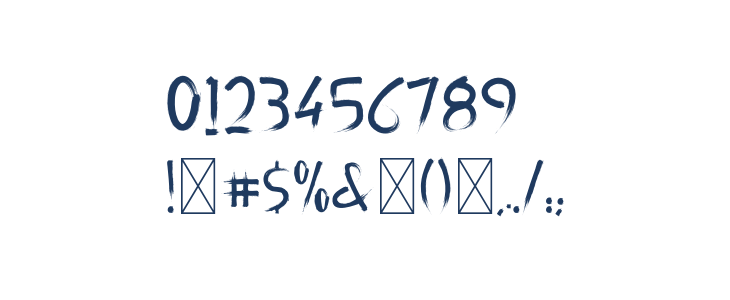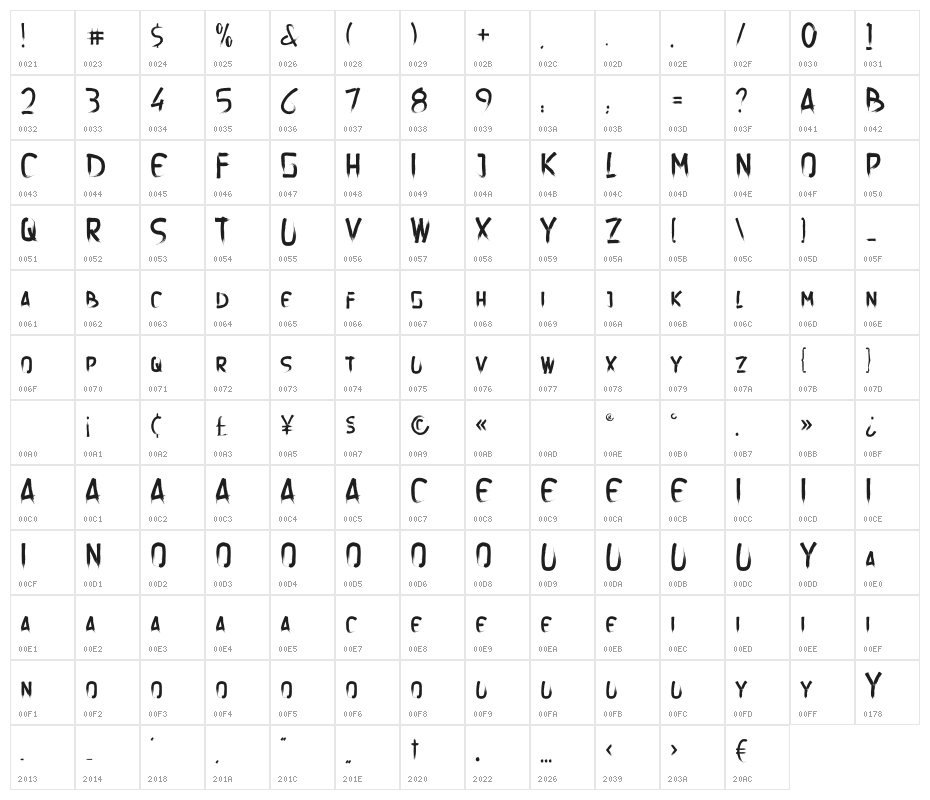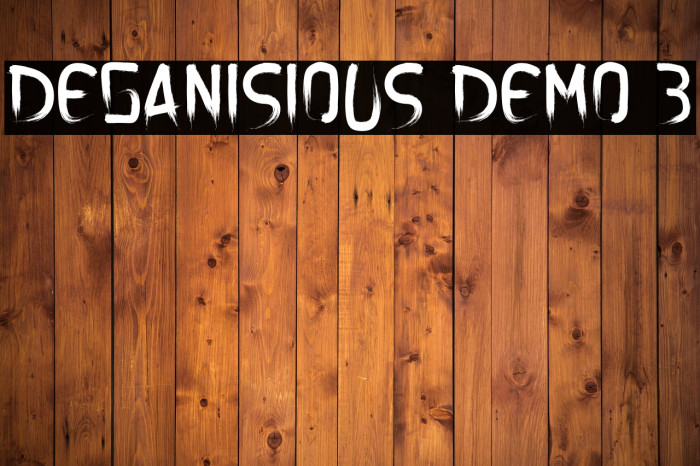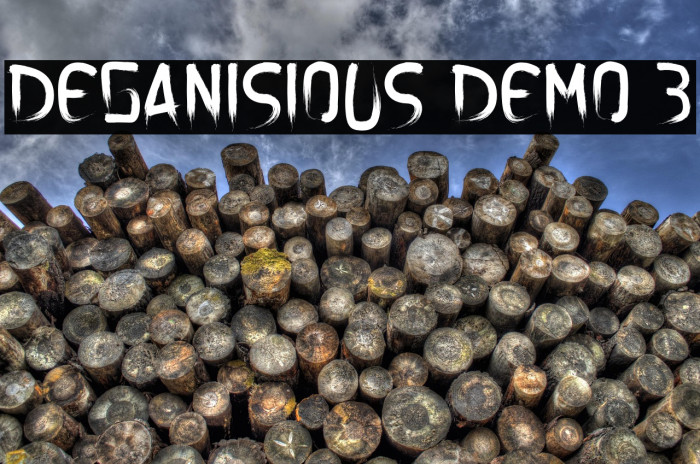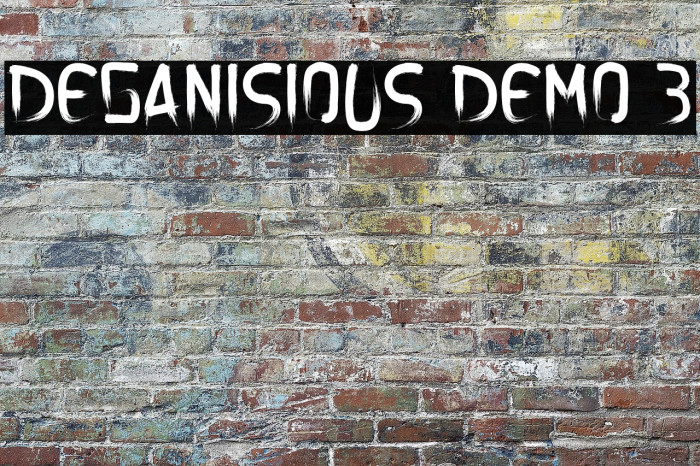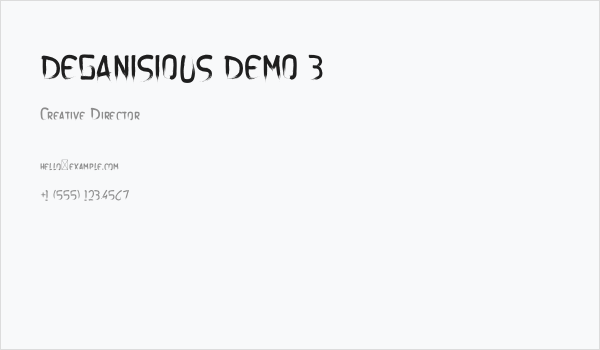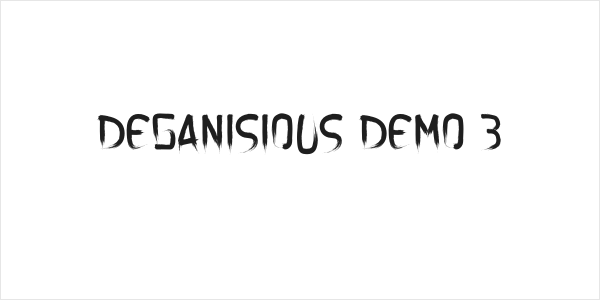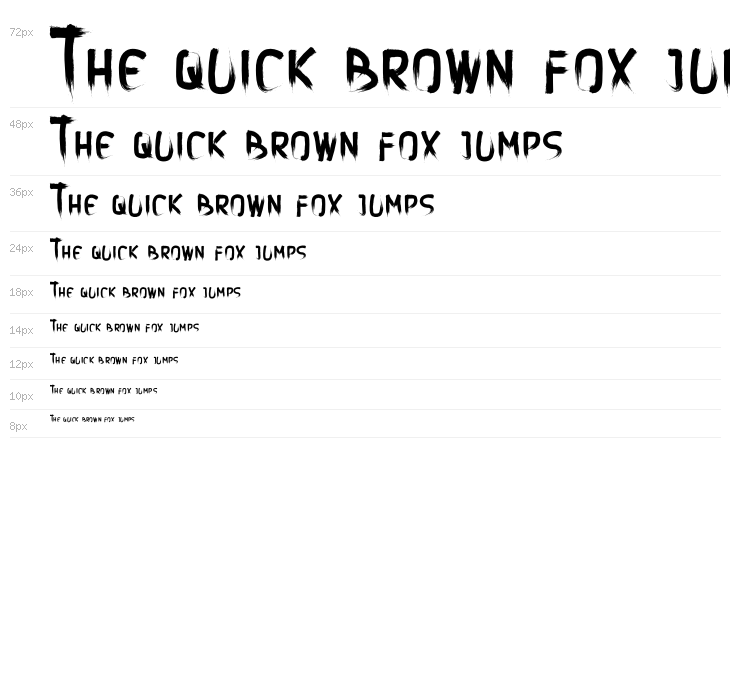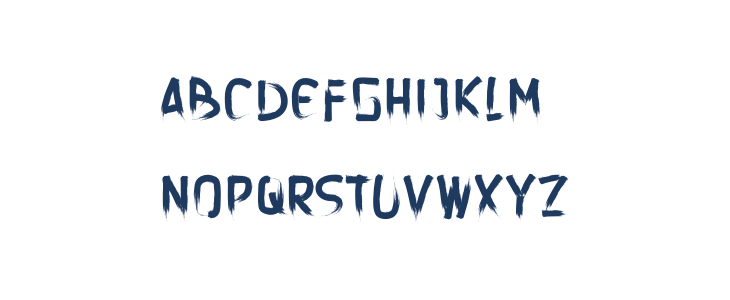
DEGANISIOUS DEMO 3 Font
DEGANISIOUS DEMO 3 Description
This font features a bold and dynamic brushstroke style, characterized by its sharp, jagged edges and irregular forms. The letters appear as if they have been painted with a dry brush, giving them a raw and energetic feel. The uppercase and lowercase letters maintain a consistent style, with a slightly aggressive and artistic flair. The numbers and special characters follow the same aesthetic, ensuring a cohesive look across all glyphs. This font's unique style makes it stand out, offering a sense of movement and intensity.